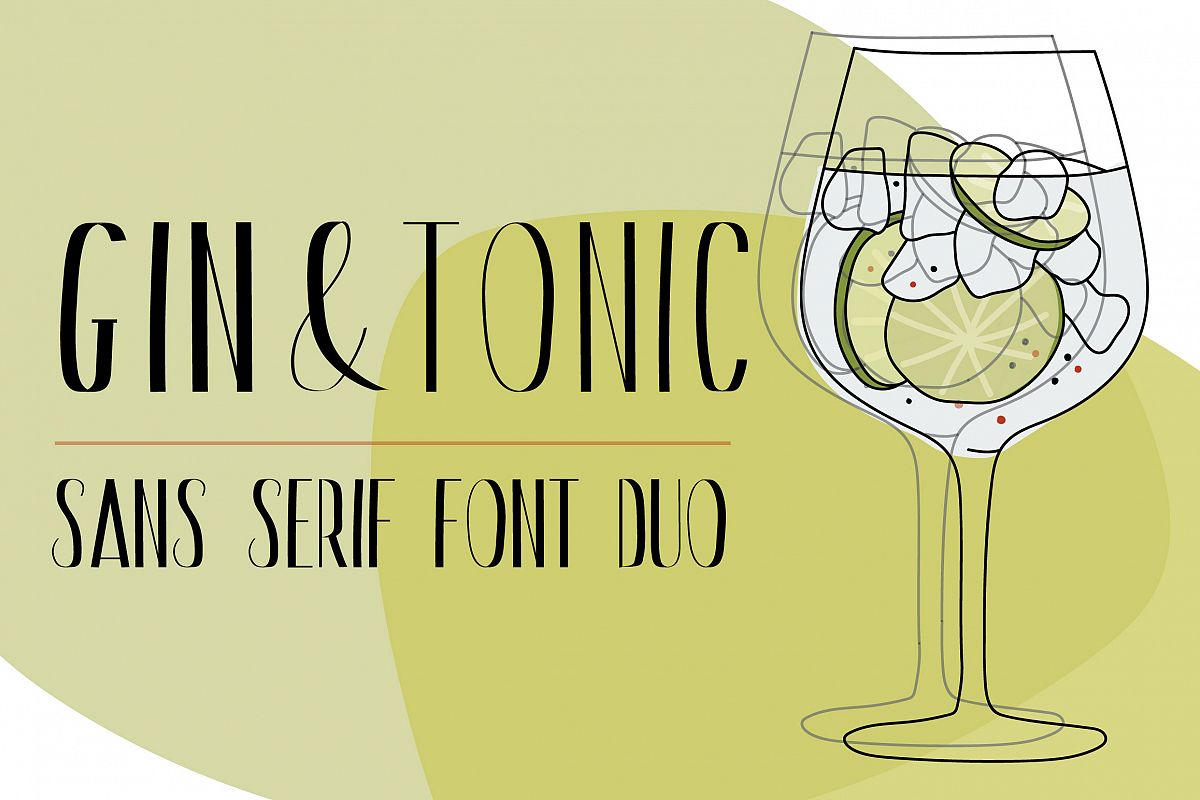
Gin And Tonic | Sans Serif Font Duo
Gin and Tonic is a timeless, modern, elegant, minimalist sans serif font handcrafted with love.
It is a perfect font for branding, creating longer texts or poster design. I wanted to create a font which includes some art deco touches but also comes with a great modern feeling.
- lowercase letters
- punctuation